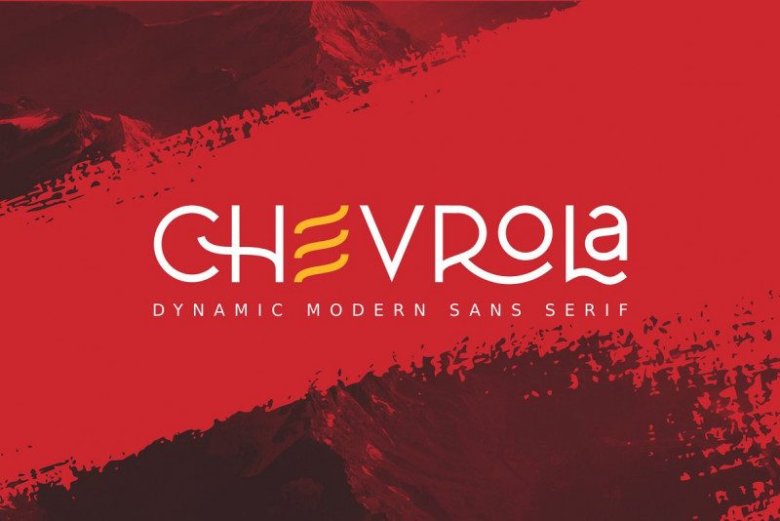
Al Chevrola – Modern Sans Font
Al Chevrola Font is a dynamic modern sans-serif font. It’s a dynamic and modern sans serif font with a cool look. Constructed from solid and sharp lines who coexist. It’s designed and shared by Aluyeah Studio. It’s a dynamic modern sans serif. Strong, with curve elegant touch. It is a rounded, geometric near-monoline construction sans serif typeface with display details. Give it modern, simple, elegant, chic, cool, and strong vibes. Each font looks amazing in large headlines.